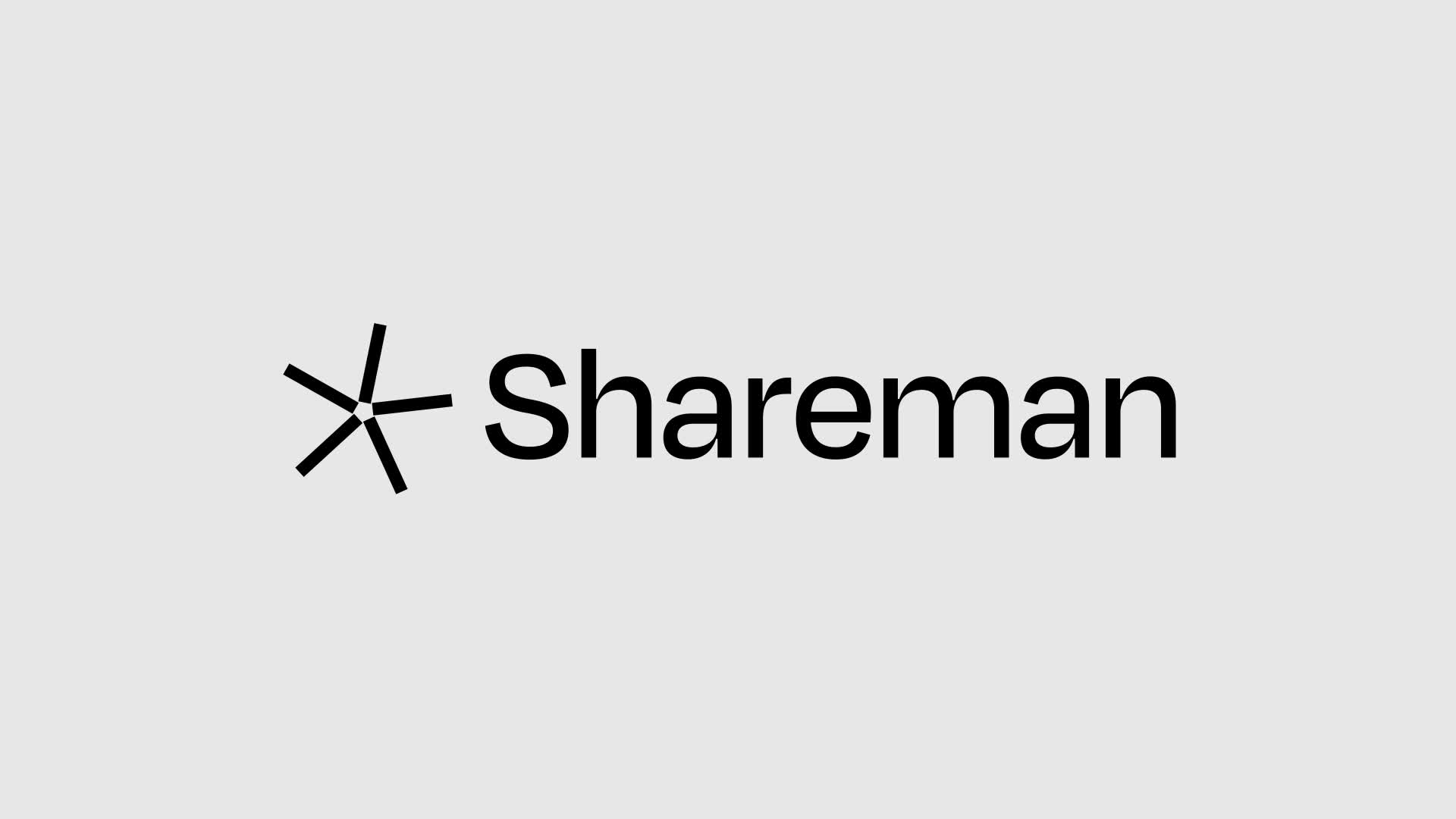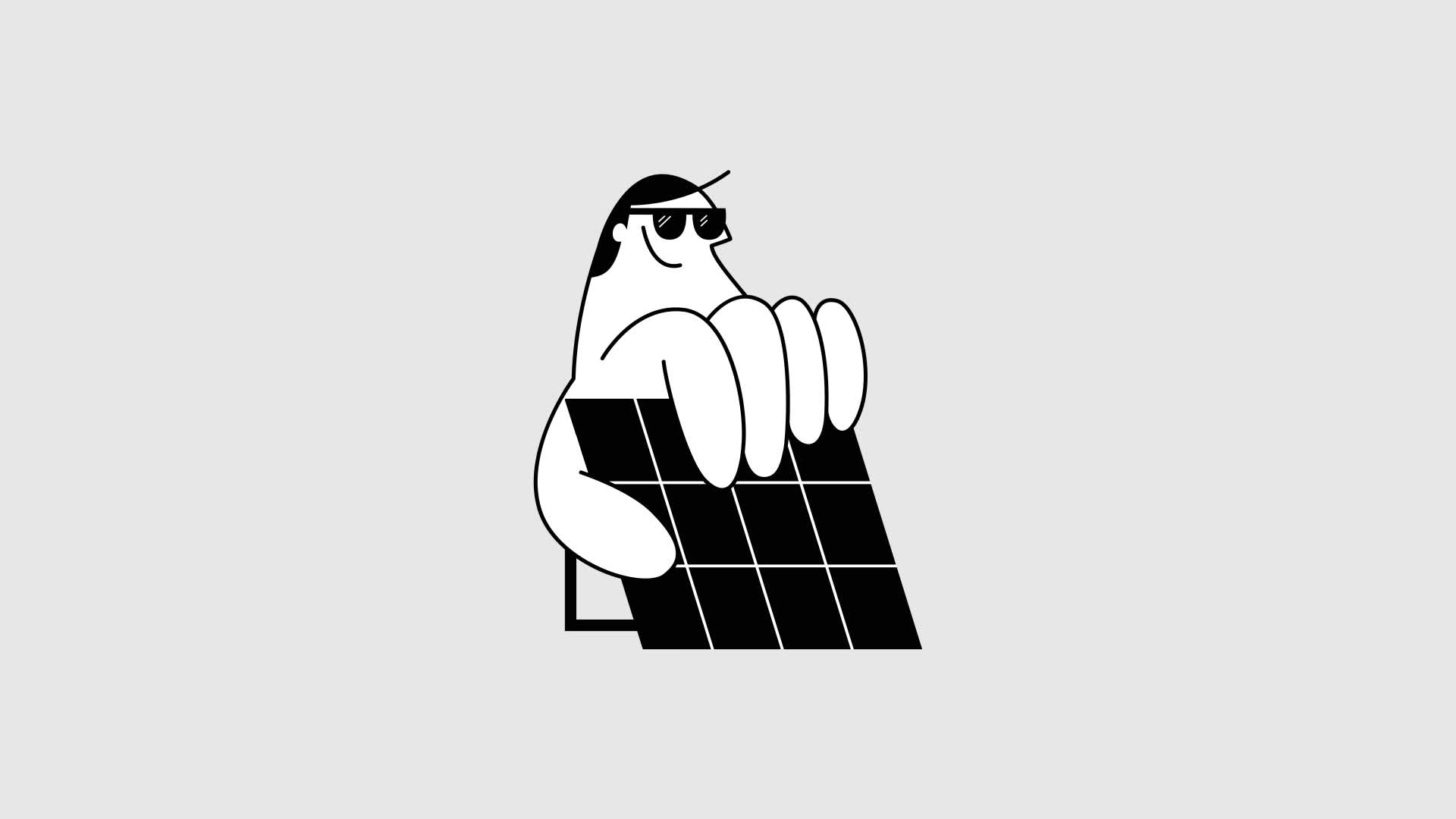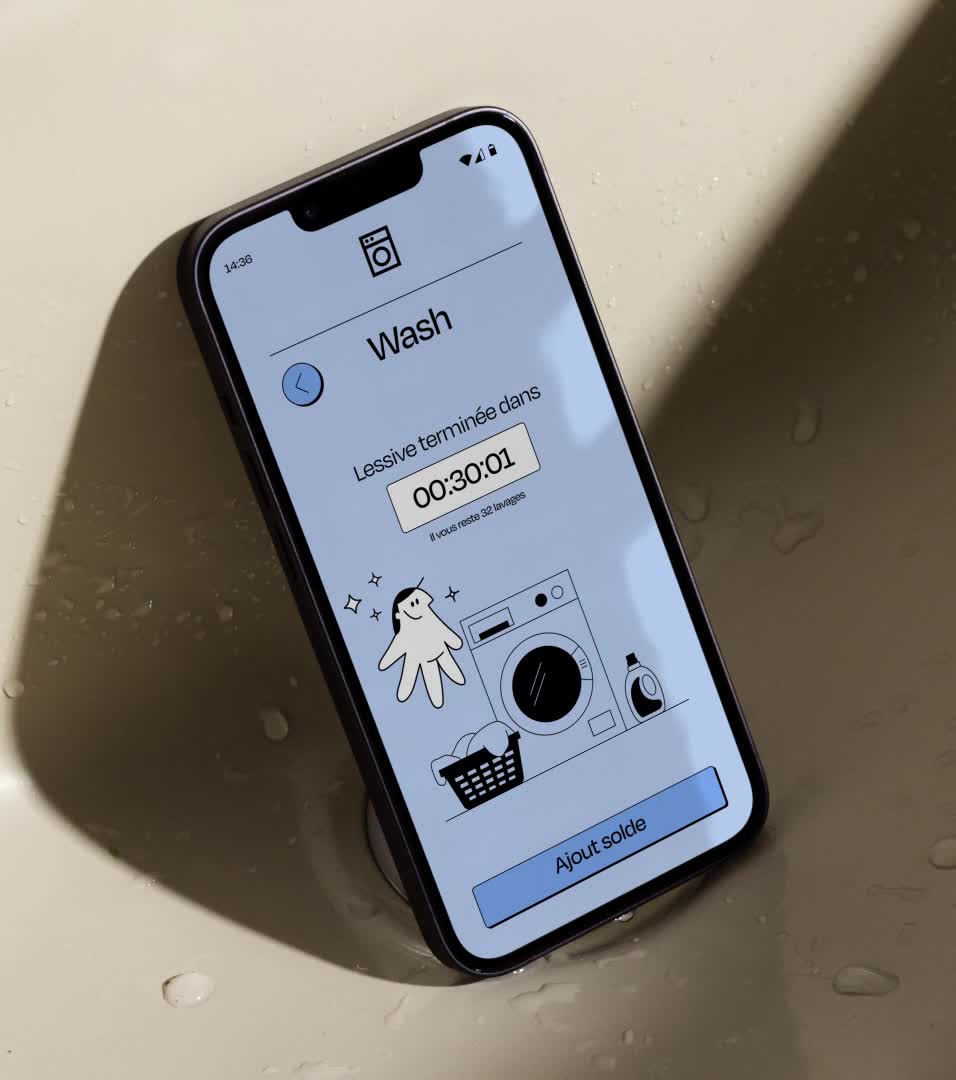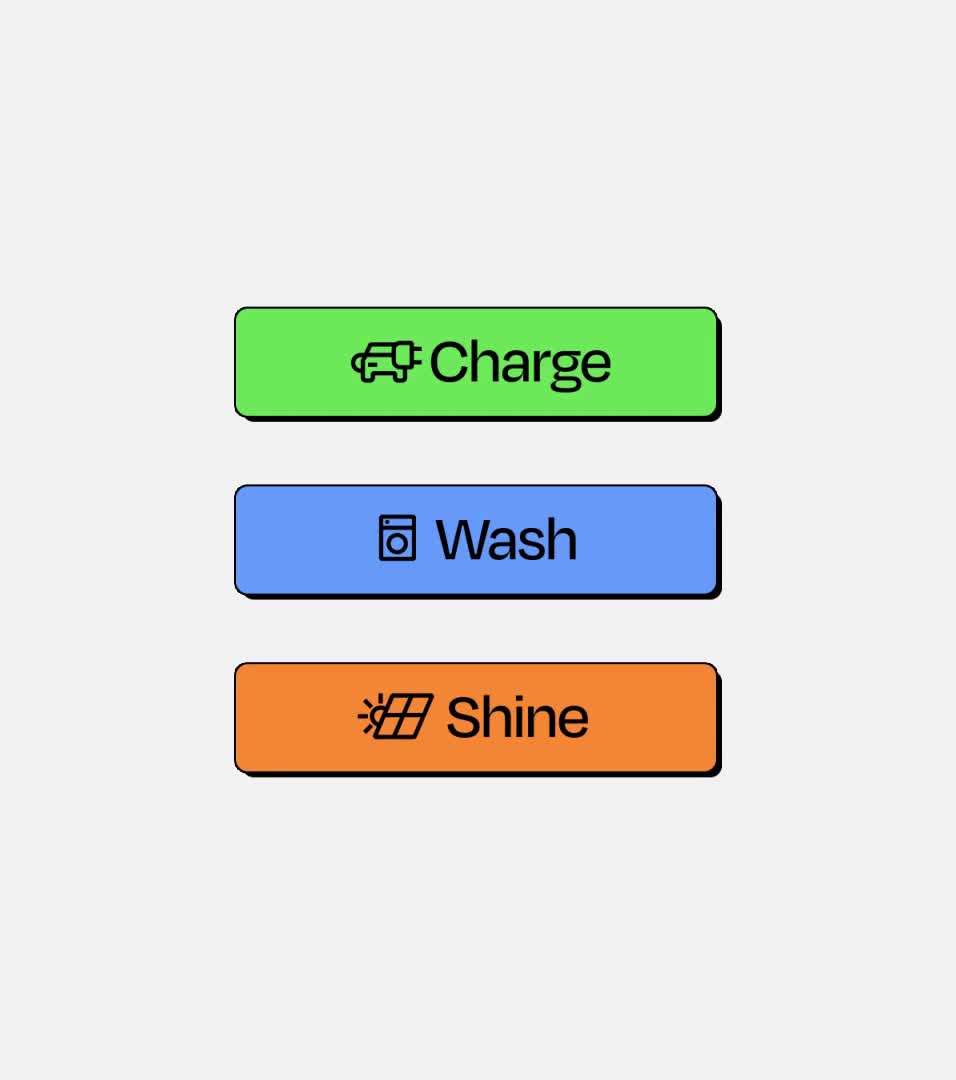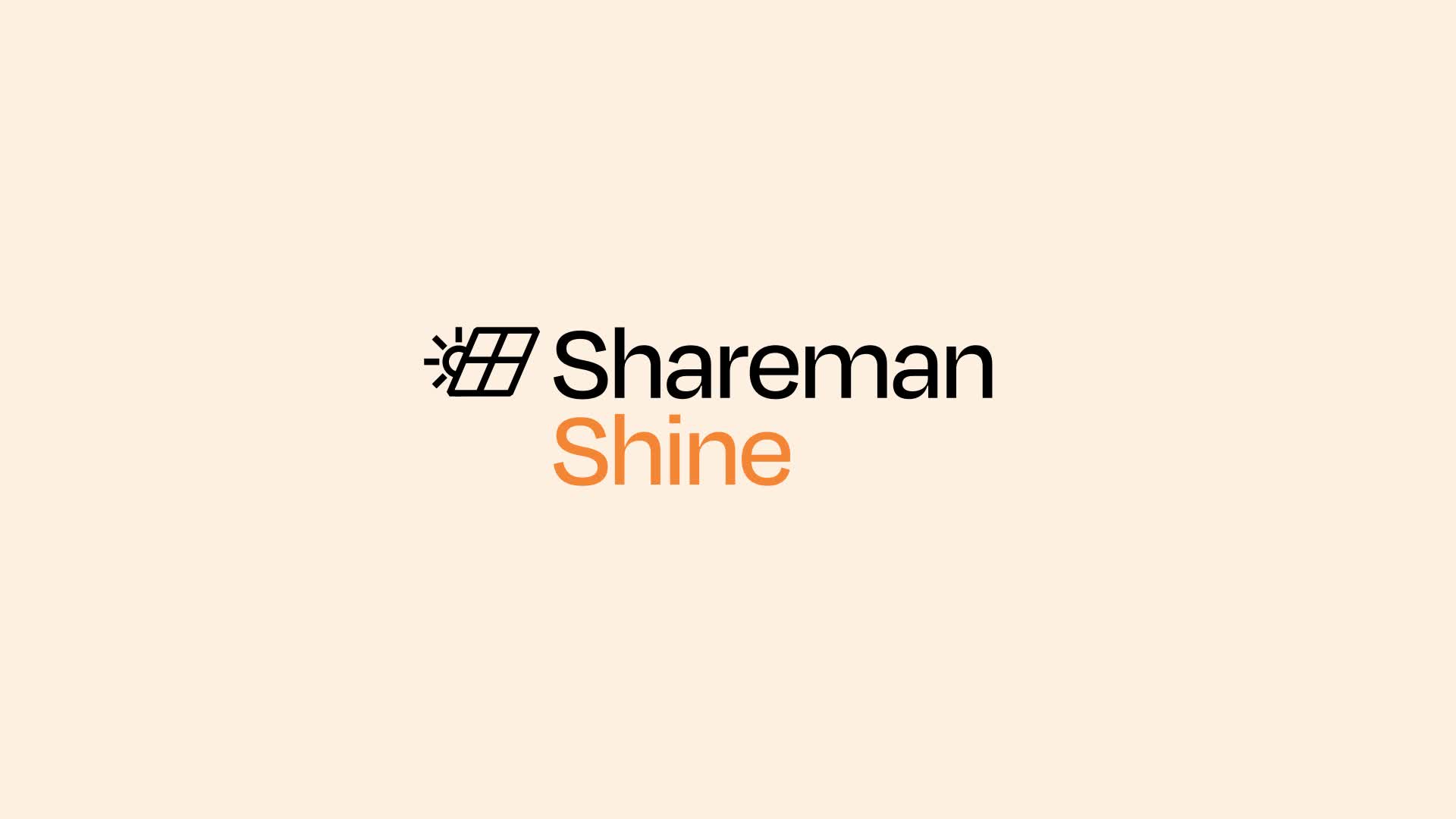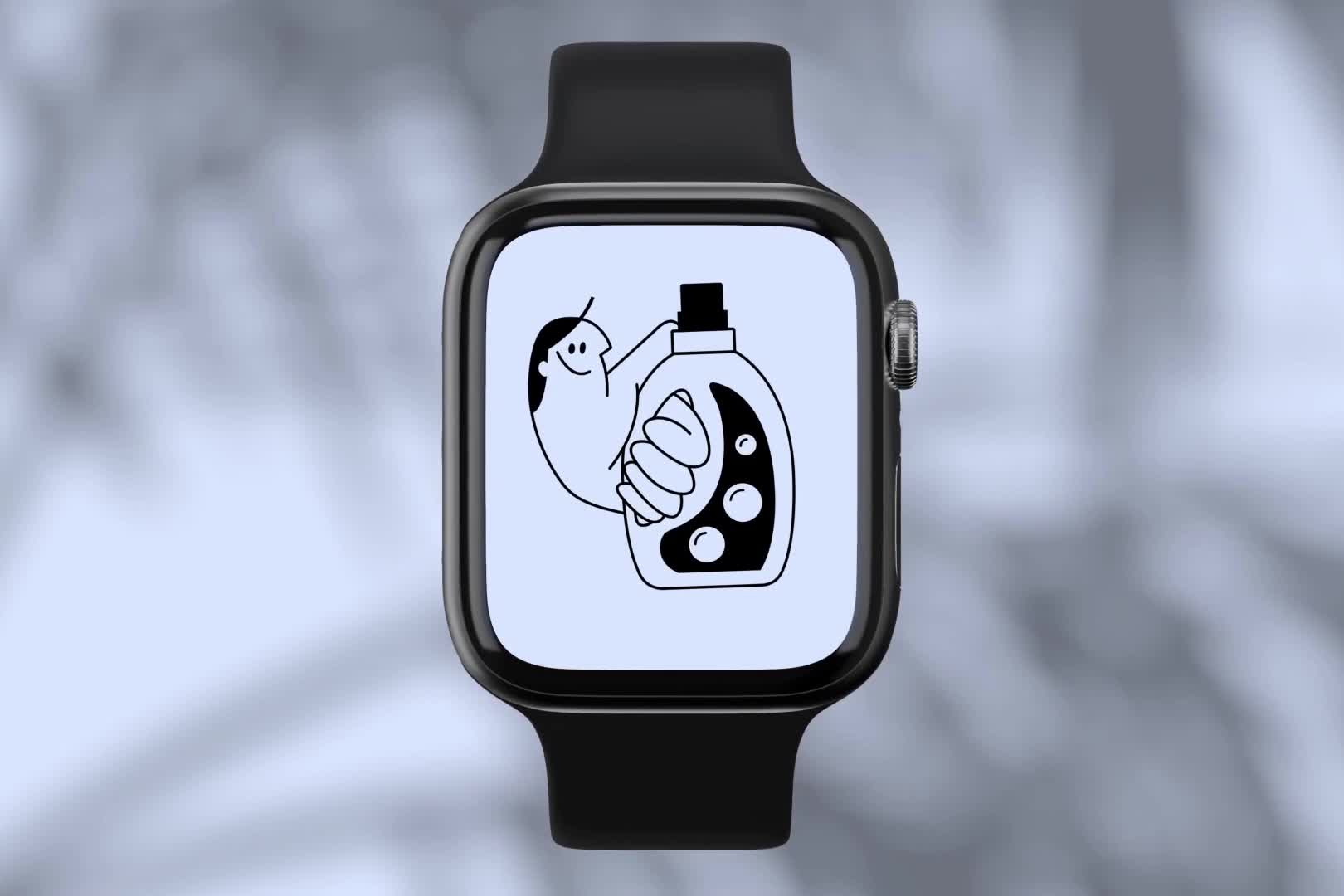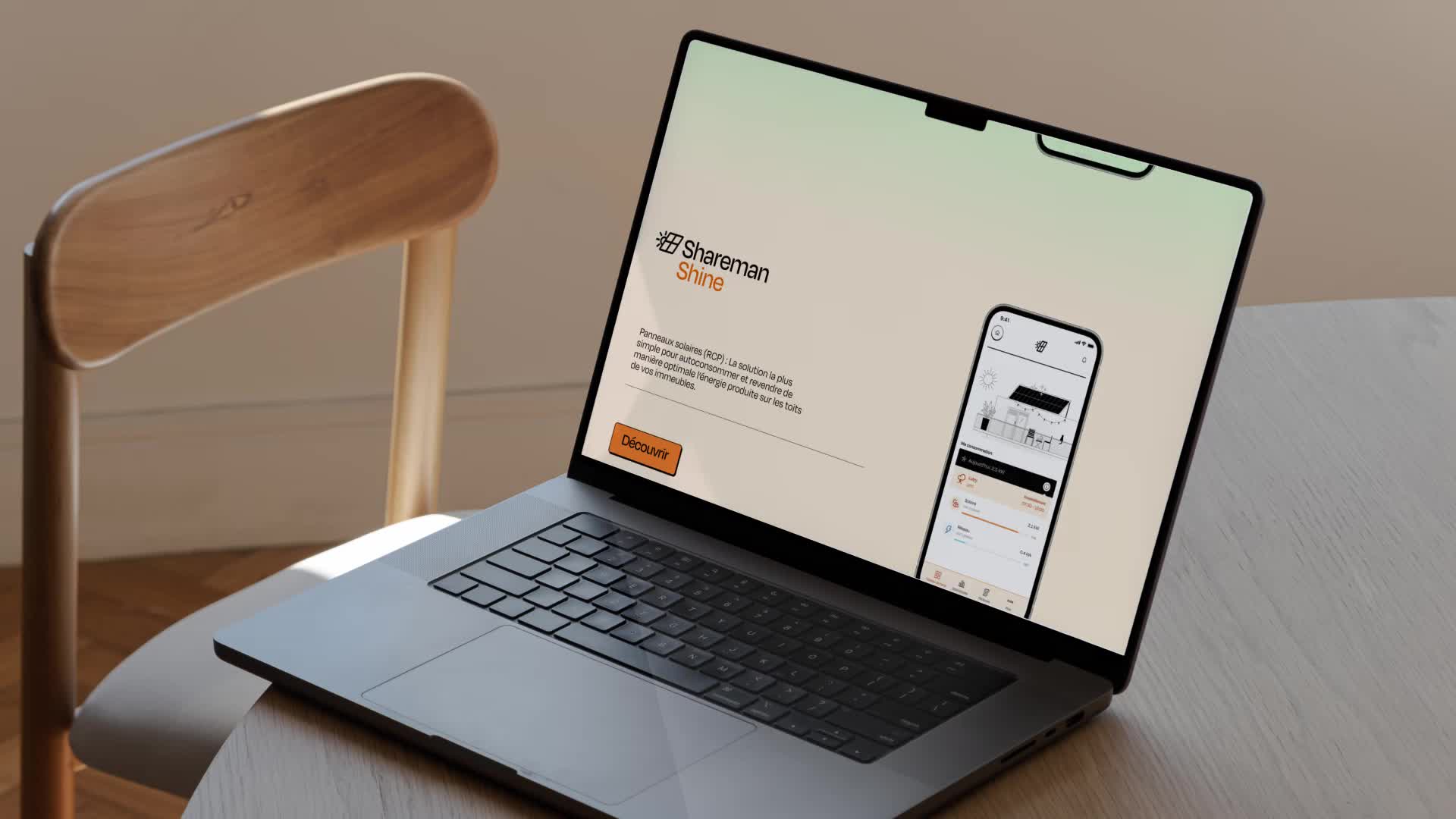
Shareman
by Hymn
I love how Hymn used a character mascot for Shareman, cleverly bridging digital services and human emotion in proptech. Instead of cold interfaces, the mascot guides users, turning instructions into conversations. It's a smart move to humanize tech without being childish, and that Degular typeface choice totally nails the 'modern yet warm' vibe.